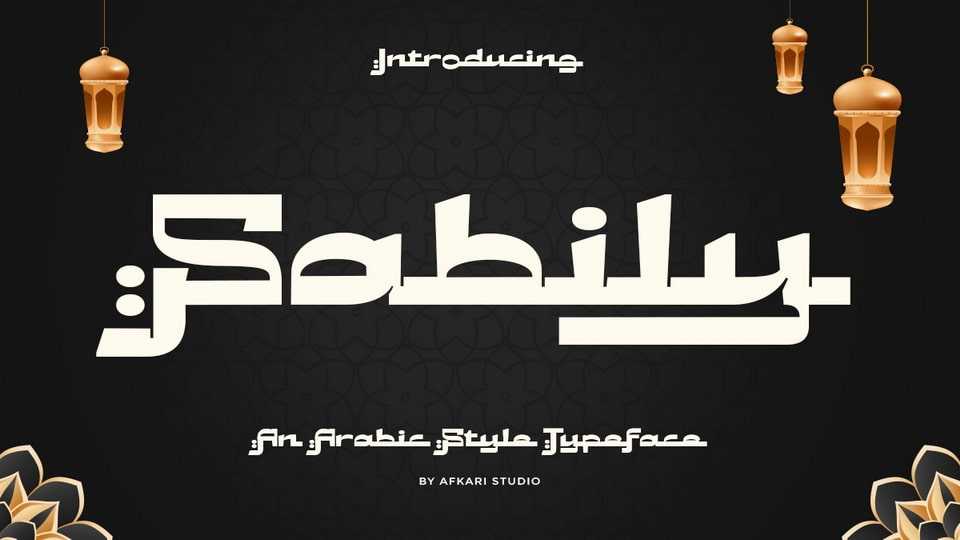
Download Sabily font, a refined Arabic-style typeface that embodies the elegance and intricacy of traditional Arabic calligraphy. Sabily font offers a unique and versatile typographic experience.
Designer: Afkari Studio